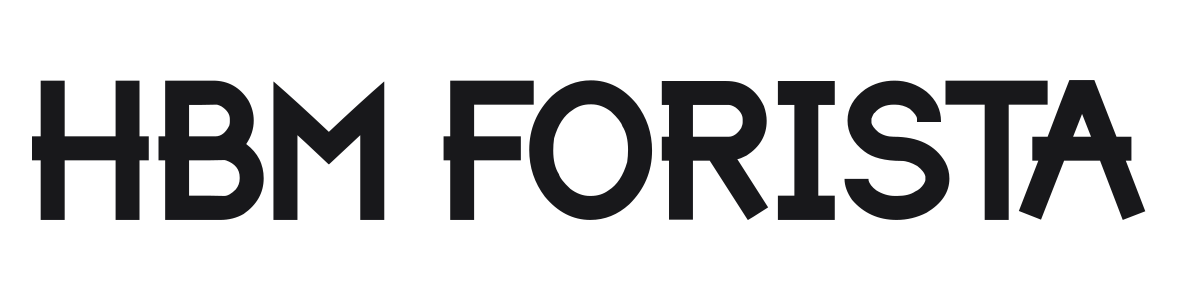
HBM Forista
HBM Forista is a bold, uppercase geometric display face from Here Be Monsters with heavy letterforms built on clean, simple shapes. Everything about it feels sturdy and direct, with thick strokes and minimal fuss that let the geometry do the talking. Built for headlines, posters, and branding where you need something strong and modern without any ornamentation getting in the way.